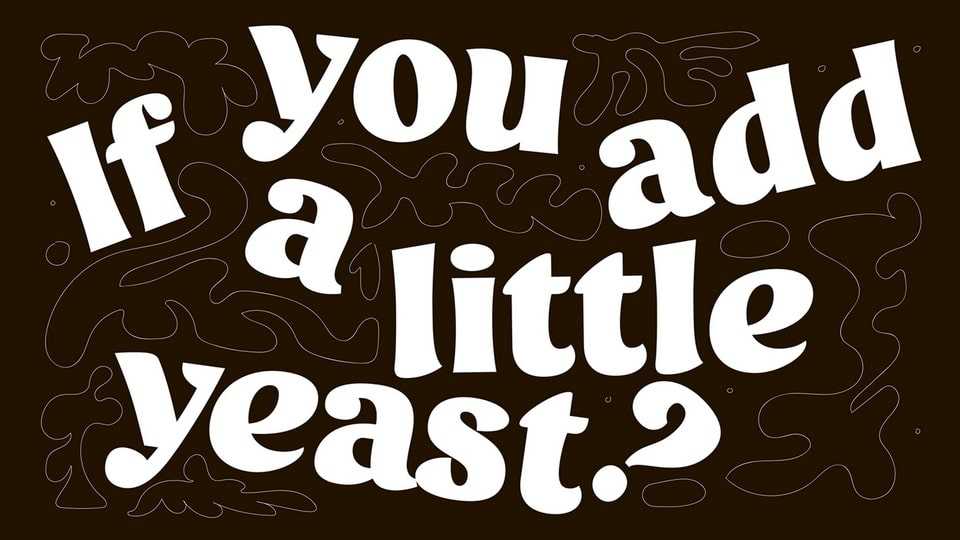
Download Yeast font, a modern typeface with playful curves and a friendly look that adds warmth and approachability to your designs. The font is designed with smooth, flowing lines and rounded forms, creating a typographic experience that feels inviting and joyful.
Designer: Ilya Mikhailovsky